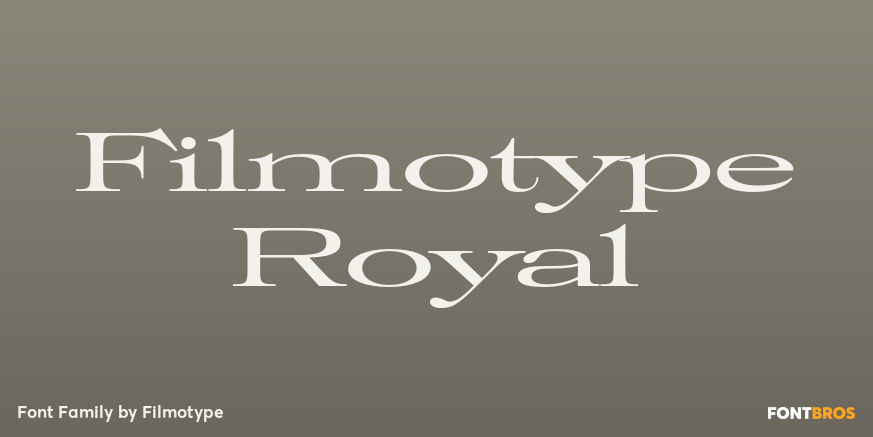
About Filmotype Royal
Originally released in the early-mid 1960s, Filmotype developed and released Royal as one of its earliest Transitional Serif typefaces inspired by lettering used on steam-era passenger train coaches. Inspired by Royal\’s aesthetic, type designer Charles…